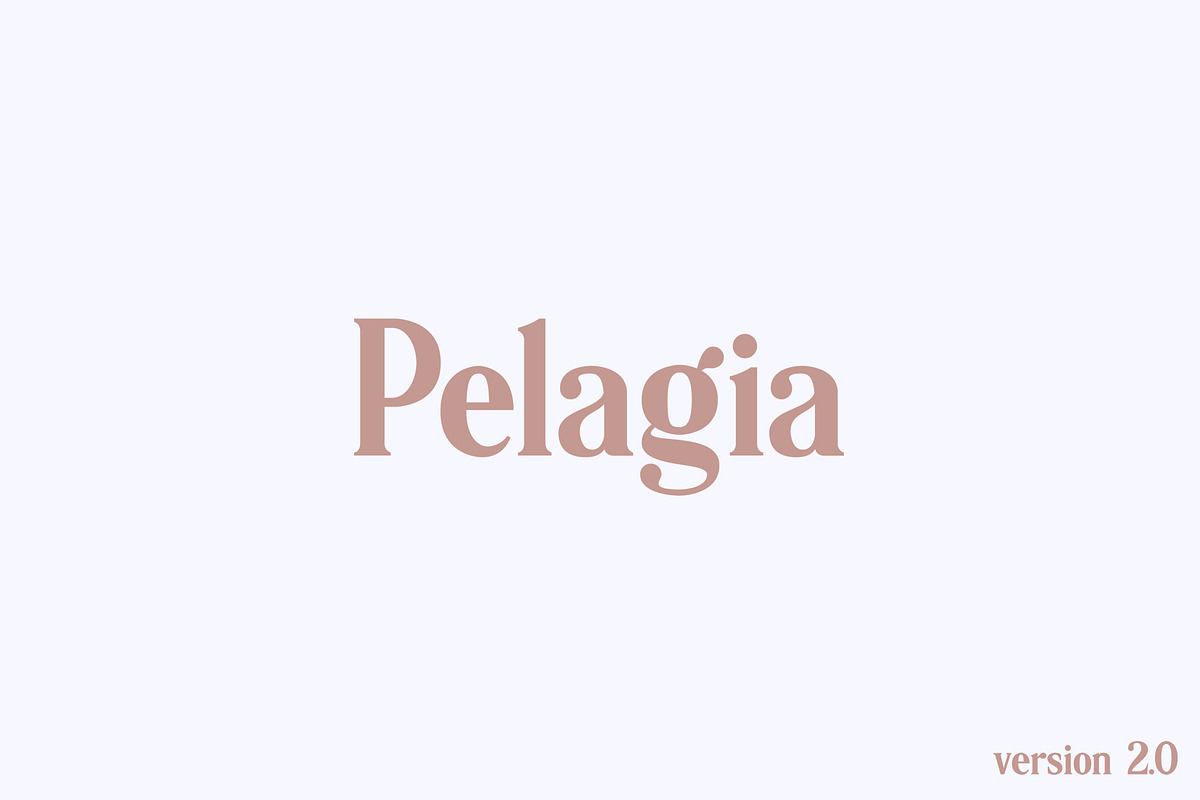
Pelagia – Modern Classic Serif Font Free Download is a timeless and elegant typeface that merges traditional serif charm with sleek, modern refinement. Please note: you must purchase this font for commercial use, but you can test it through a free download. With its high-contrast strokes, sharp serifs, and beautifully balanced proportions, Pelagia is perfect for editorial layouts, luxury branding, wedding stationery, fashion lookbooks, and product packaging.
This font exudes sophistication while maintaining readability—ideal for projects that demand both style and substance. Whether you're designing a chic logo or a polished magazine cover, Pelagia – Modern Classic Serif Font Free Download delivers lasting visual impact. Fully compatible with Adobe Illustrator, Photoshop, Canva, and other design tools. Download it today for personal use and elevate your typography with the graceful power of Pelagia.